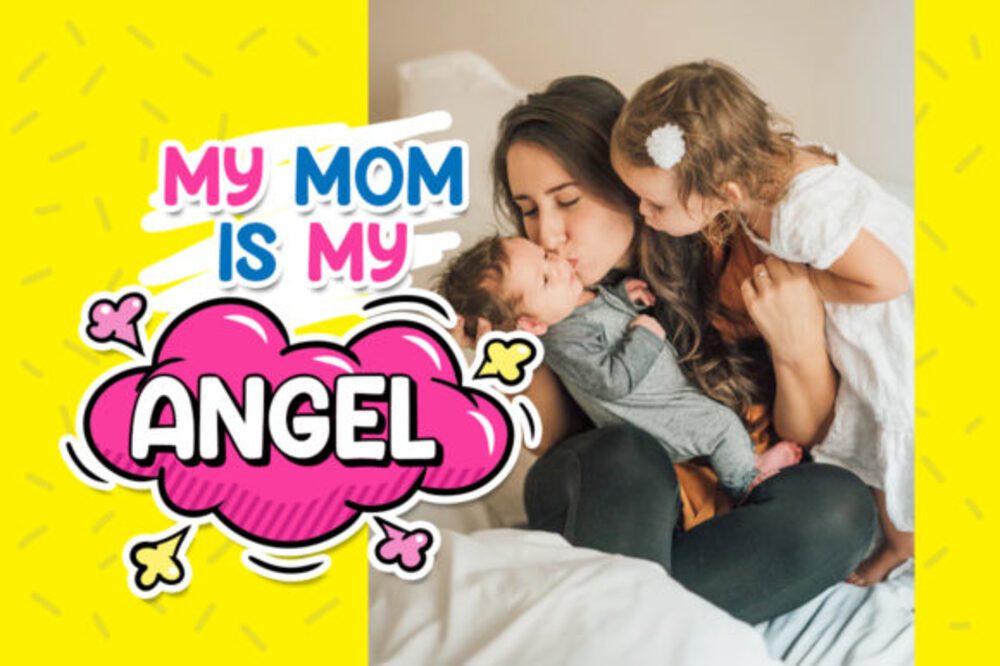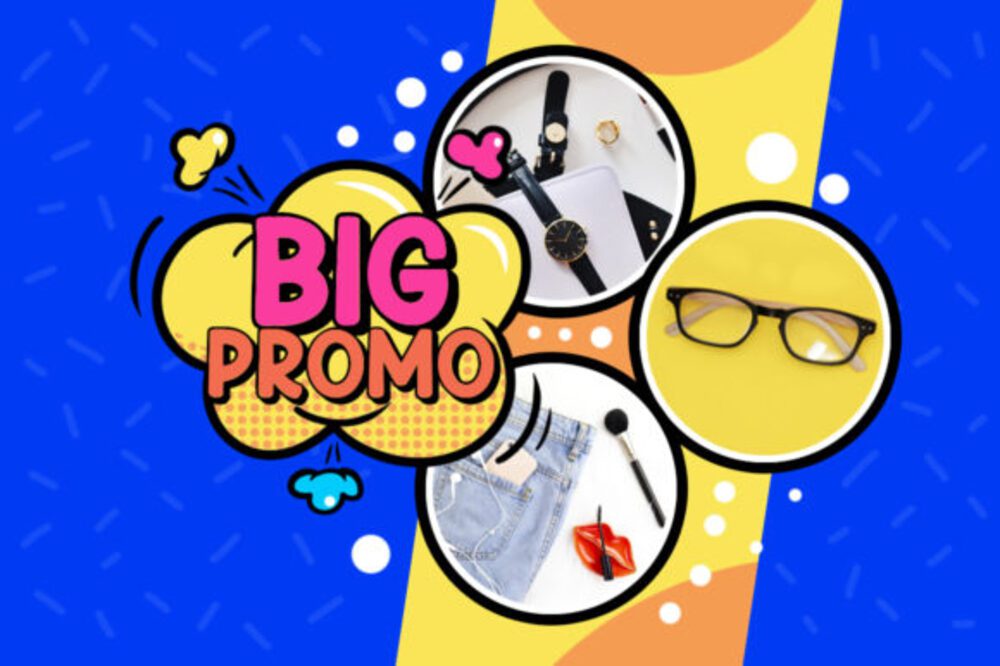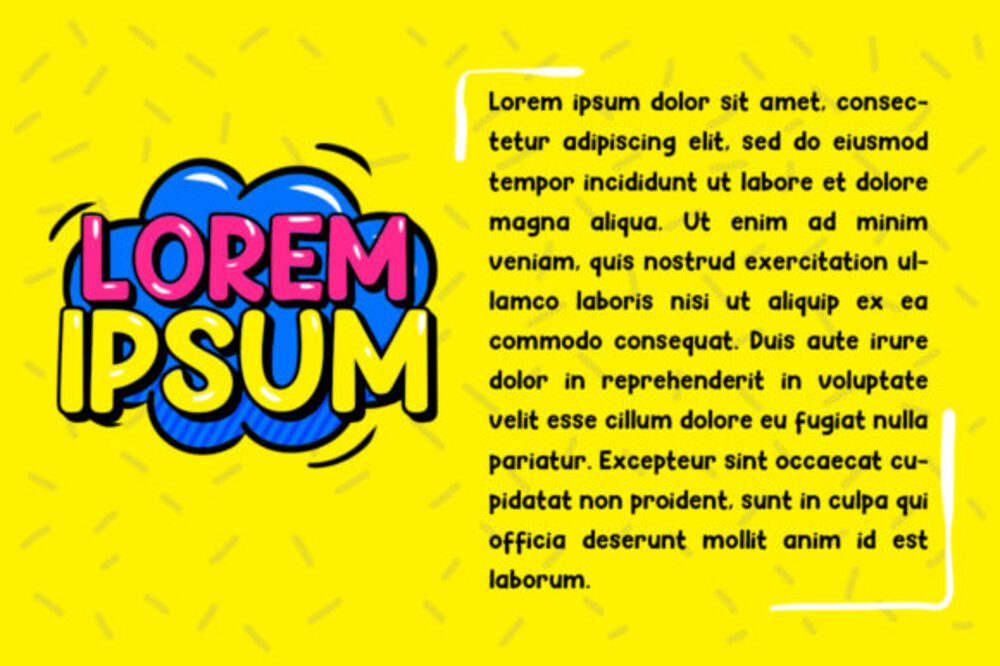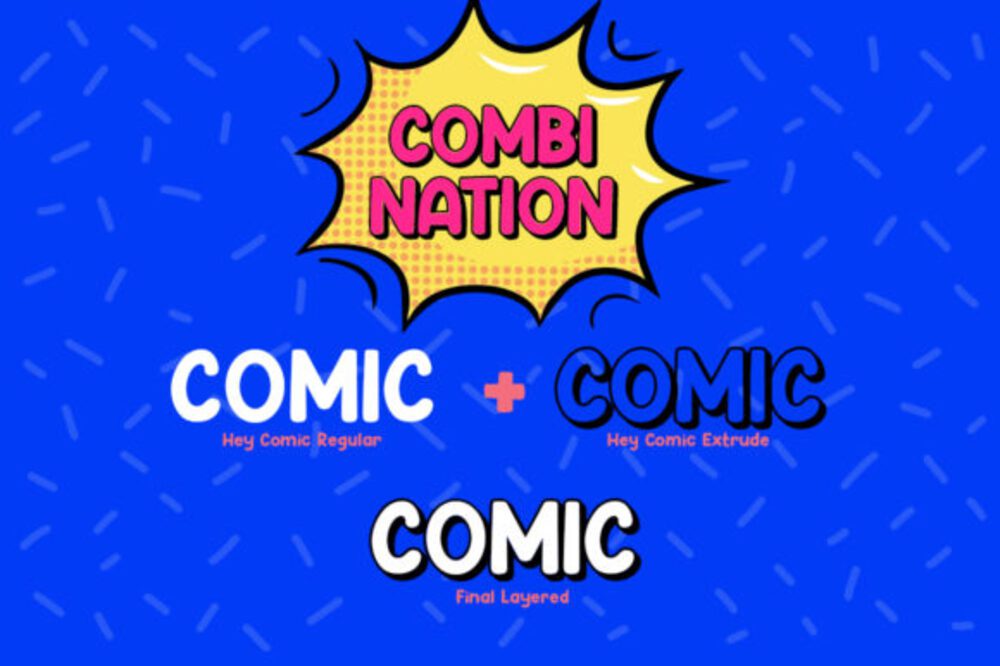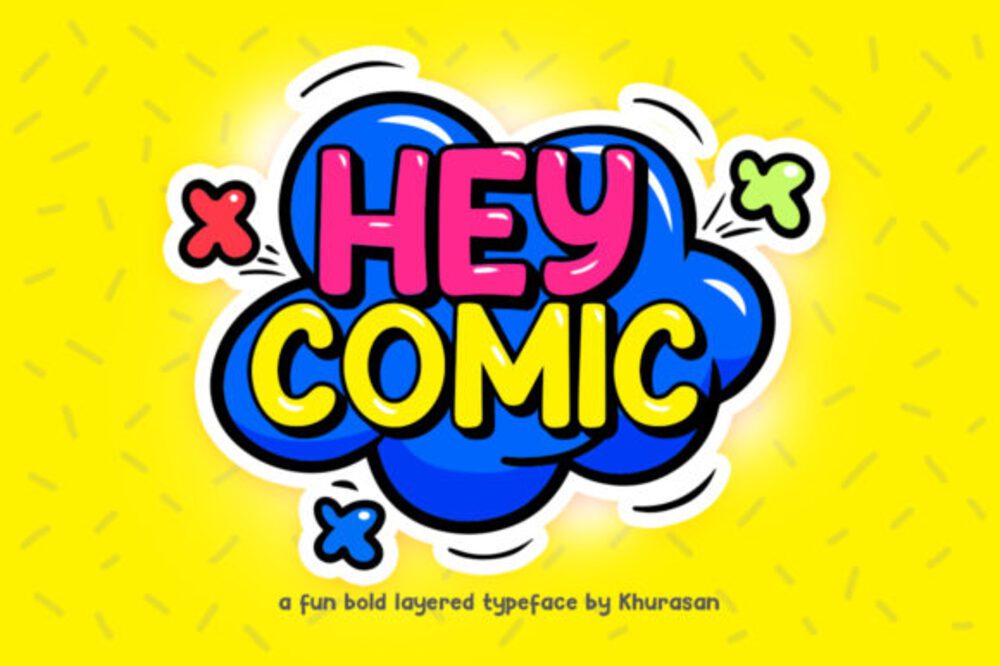
Hey Comic Font
Hey Comic is a cheerful and expressive typeface inspired by the playful spirit of classic comic books. Its bold, rounded letters and dynamic strokes bring energy and character to any design. Perfect for posters, children’s projects, or storytelling visuals, Hey Comic adds a fun, approachable vibe. Its lively personality ensures your message pops with charm and creativity.